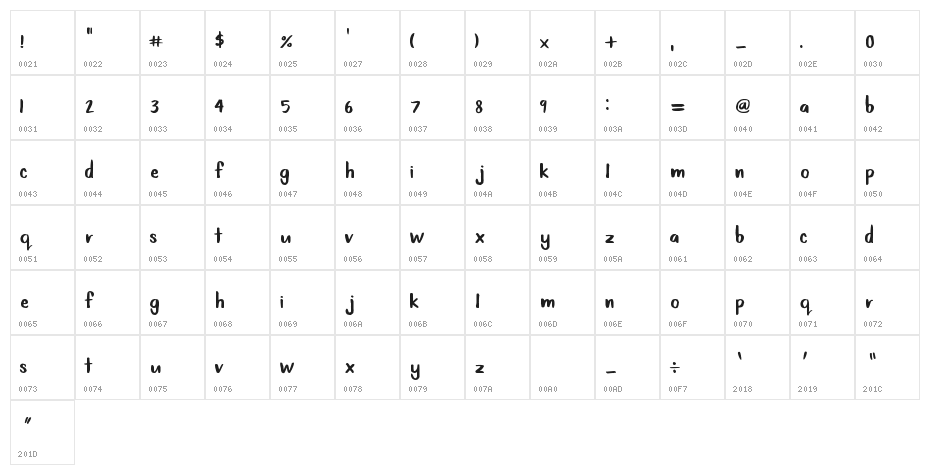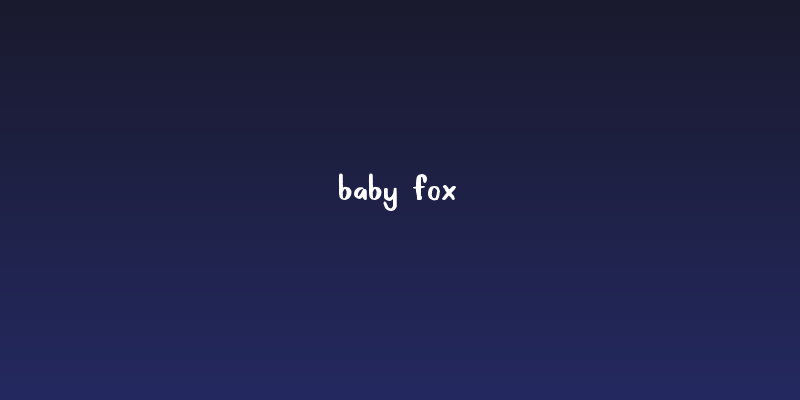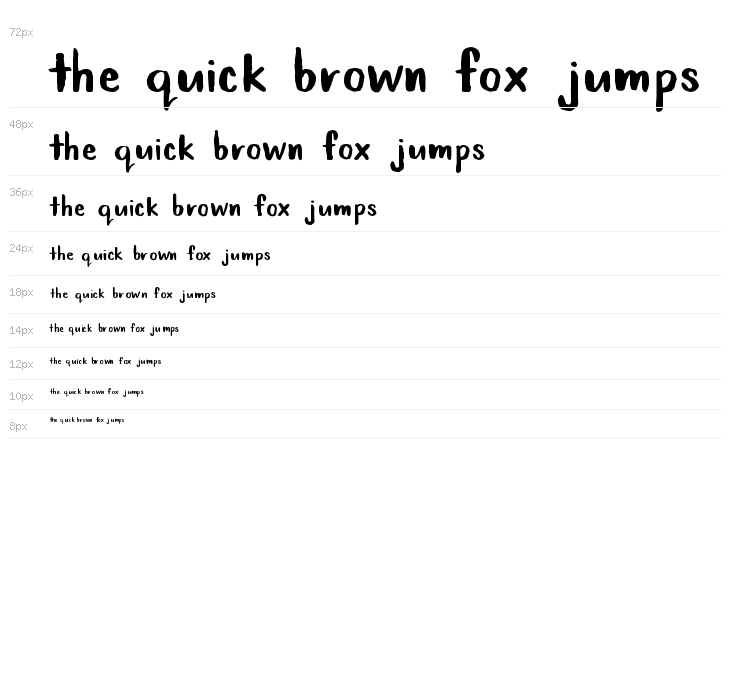
Baby Fox Font
| Gesamtstil | Playful |
| Anwendungsfall | Headlines, Logos, Casual Text |
| Vorgeschlagene Projekte | Ideal for children's books, playful branding, greeting cards, and casual invitations. |